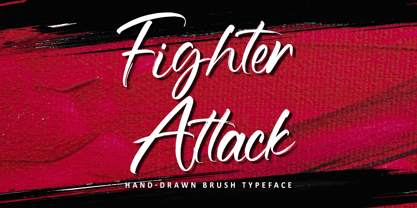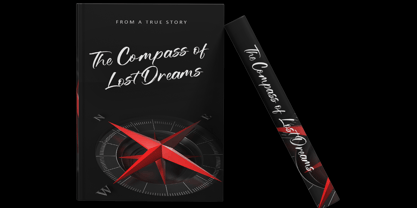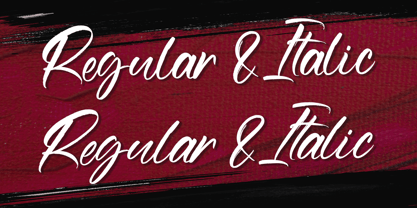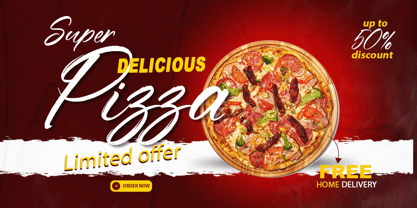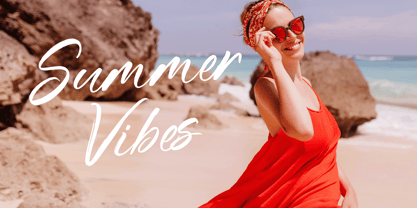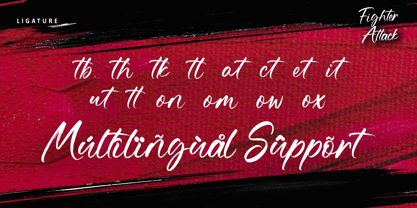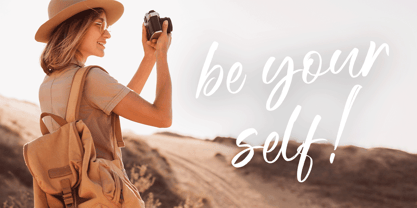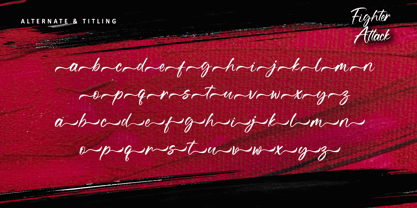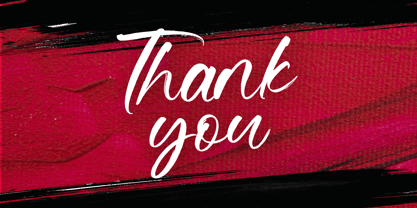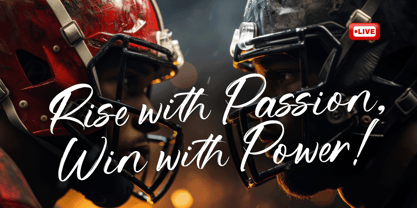
Fighter Attack
Die Schriftfamilie Fighter Attack wurde von Thomas Aradea entworfen und von Letterara veröffentlicht. Fighter Attack enthält 2 Stile und Familienpaketoptionen. Mehr über diese Familie
Introducing Fighter Attack — a raw and fearless handwritten brush font that strikes with unstoppable energy. Each letter is crafted with fierce, natural motion, delivering rugged texture and untamed spirit to your designs. Perfect for bold logos, gritty posters, streetwear branding, and anything that demands power and presence, Fighter Attack unleashes pure adrenaline on the page. Its wild strokes, dynamic alternates, and full PUA encoding give you limitless freedom to create designs that roar with strength, rebellion, and undeniable attitude. Ready to dominate the scene? Fighter Attack is your ultimate weapon.
Designer: Thomas Aradea
Foundry: Letterara